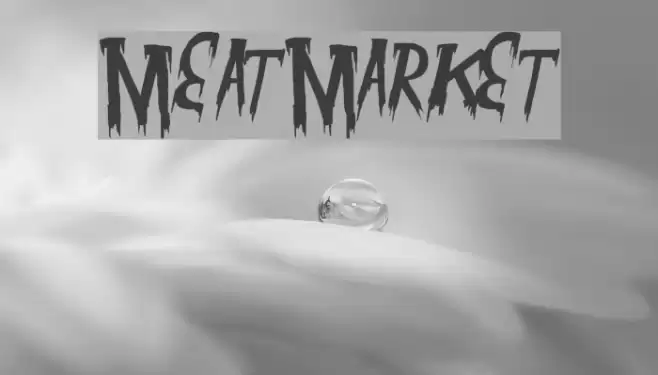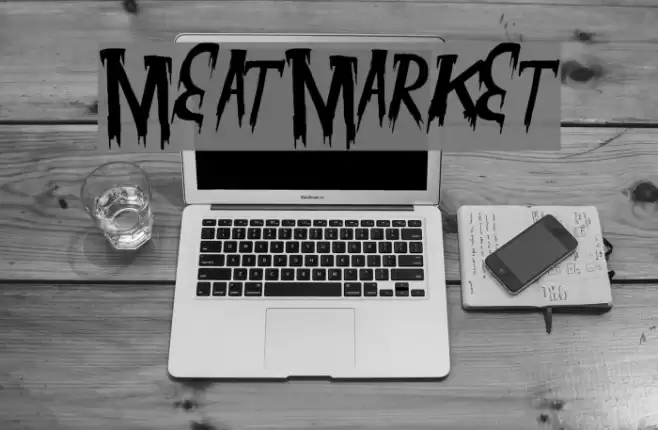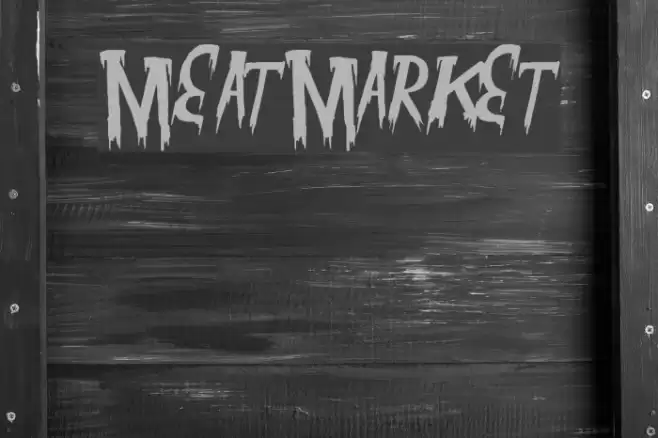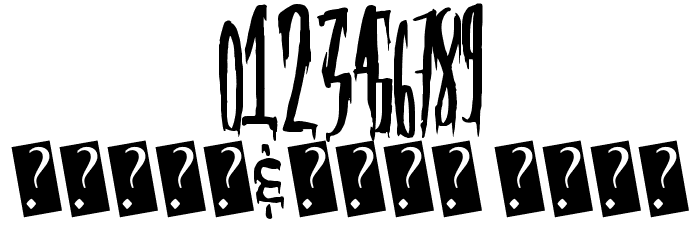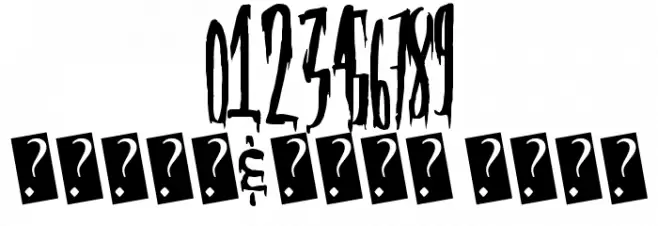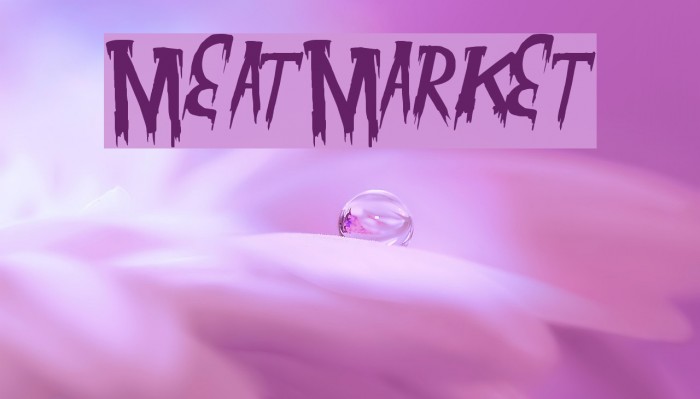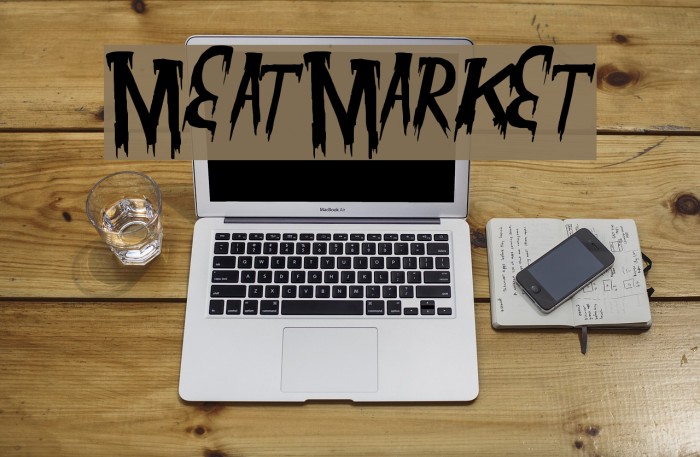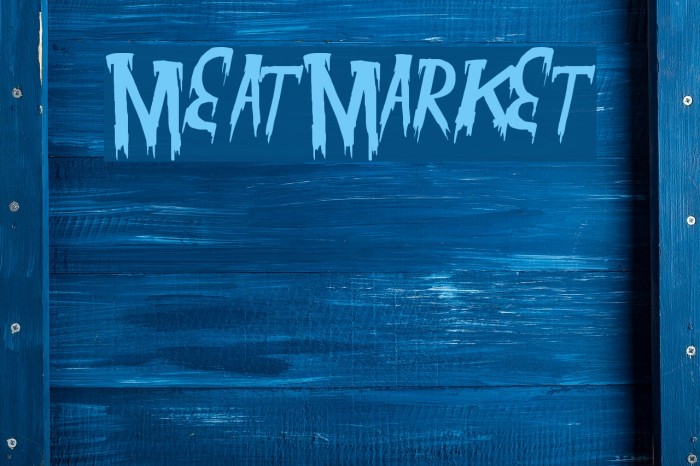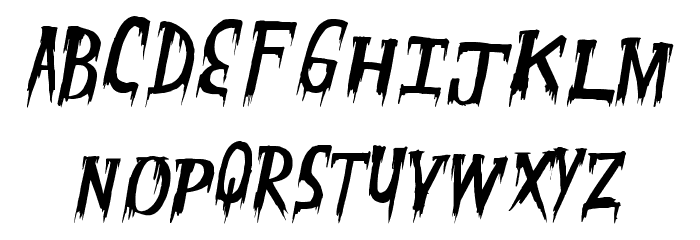
MeatMarket Font
MeatMarket Description
This font features a dramatic and edgy design with sharp, jagged edges that give it a distressed and eerie appearance. The letters appear as if they are dripping or melting, creating a sense of movement and intensity. The uppercase and lowercase characters maintain a consistent style, with elongated vertical strokes and irregular, pointed serifs. The numerals follow the same aesthetic, contributing to the overall unsettling vibe. This font is highly decorative and captures attention with its unique and bold presentation.
A dramatic, jagged font with a distressed, eerie appearance from Uncategorized fonts.
- Proposed Projects: Ideal for horror-themed posters, Halloween invitations, edgy album covers, or any project requiring a bold, unsettling aesthetic.
- Use Case: Headlines, Posters, Themed Events